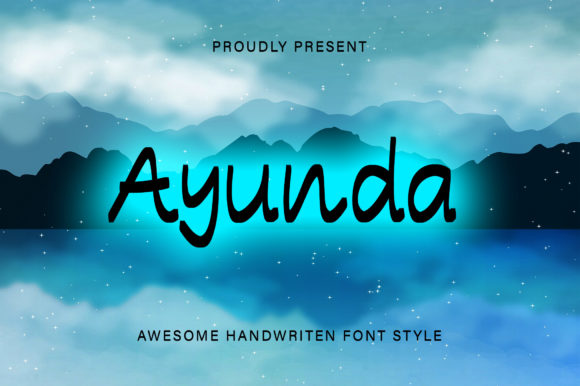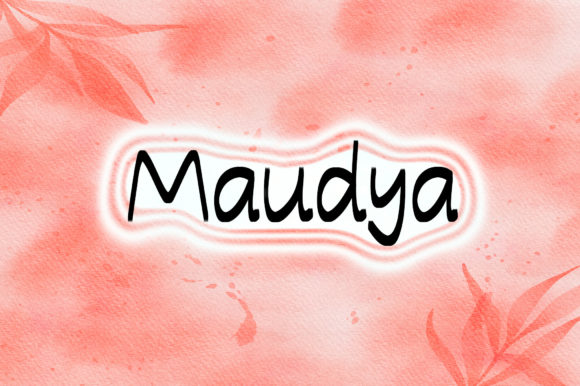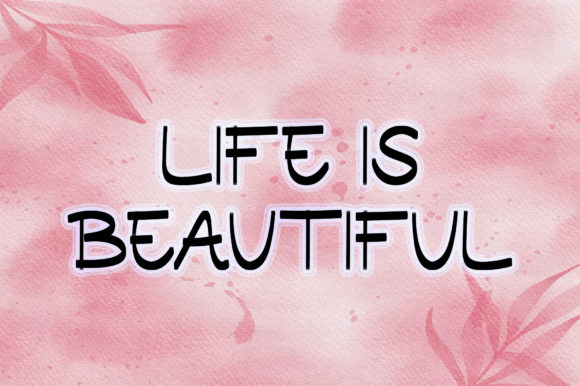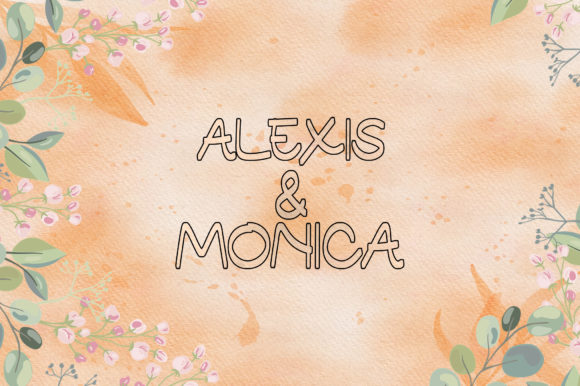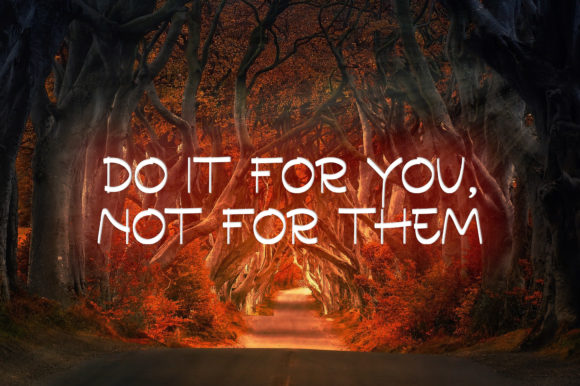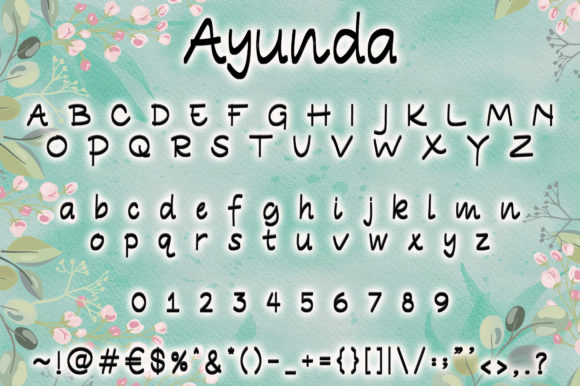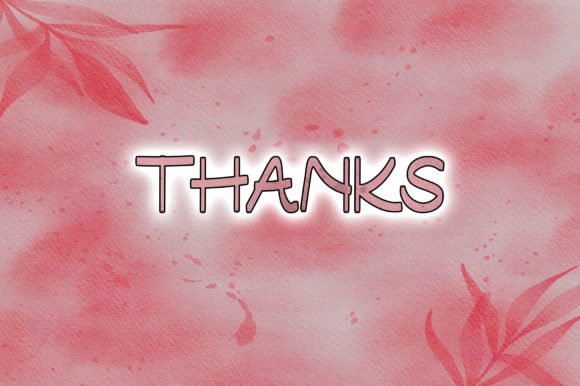
Ayunda Font
About Ayunda Font
Ayunda is a natural and simple handwritten font. Whether you’re looking for fonts for Instagram or calligraphy scripts for DIY projects, this font will turn any creative idea into a true piece of art!